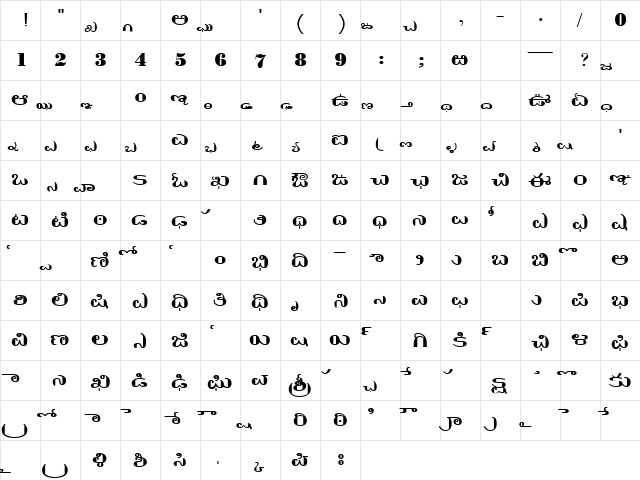
AkrutiTlgVinod Normal
Design Context for AkrutiTlgVinod Typeface
AkrutiTlgVinod is a composed and adaptable typeface that performs quietly and consistently across a wide range of design contexts.